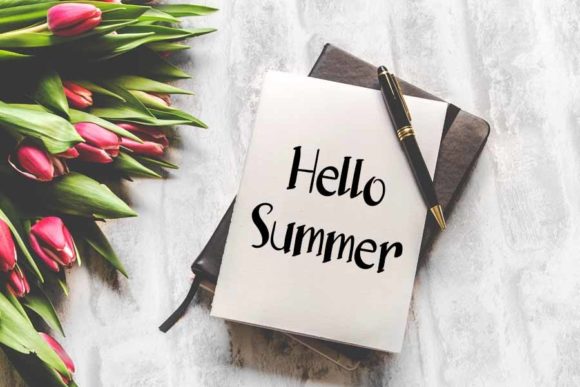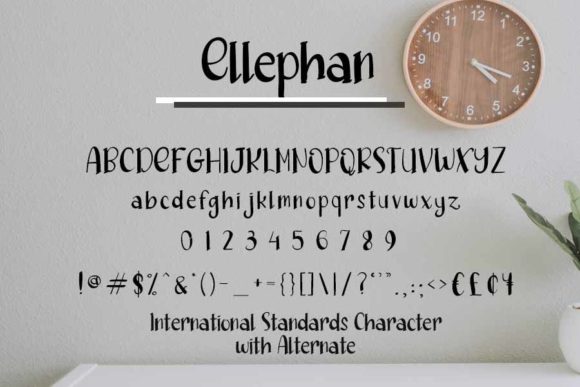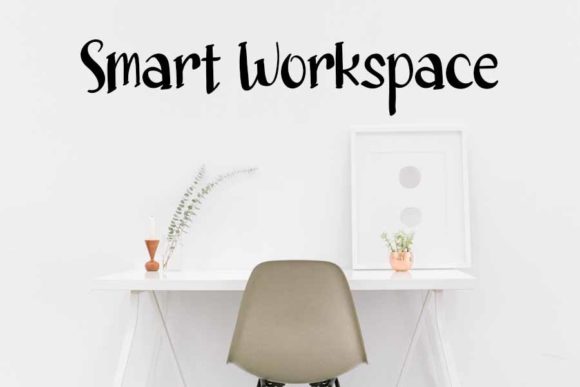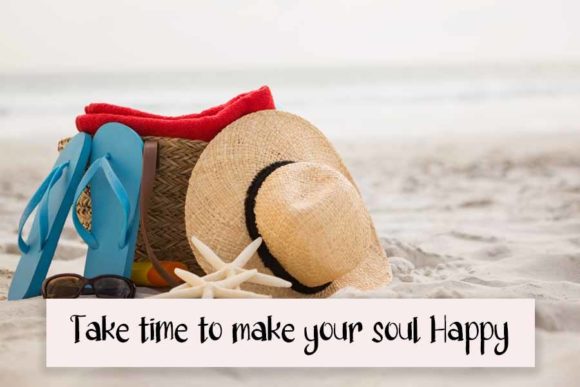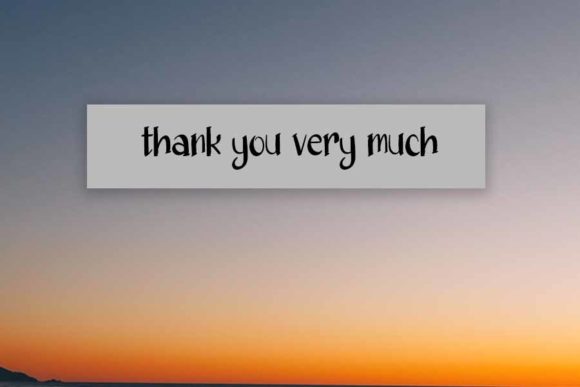
Ellephan Font
About Ellephan Font
Ellephan is simple and playful handwritten font. Its natural and unique style makes it incredibly fitting to a large pool of designs. The only limit is your imagination!